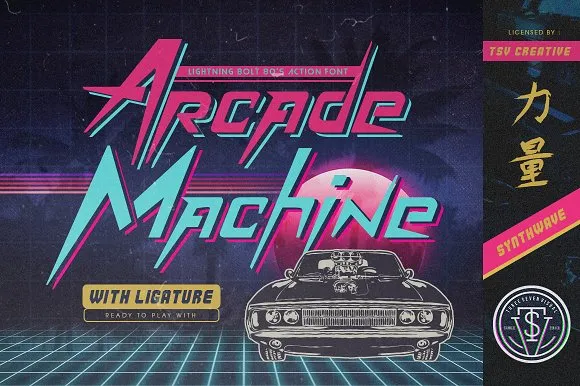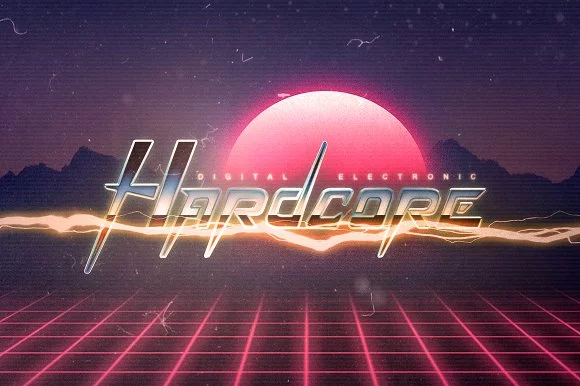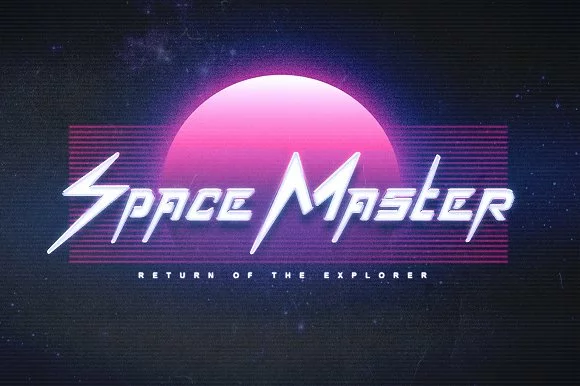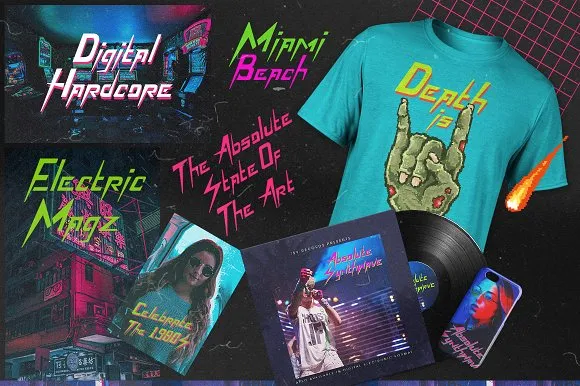
About Arcade Machine Font – A Retro 80s Typeface for Bold Design
I’m a typographer and graphic designer who often works with nostalgic typefaces. While researching fonts for a retro branding project, I found the Arcade Machine Font free version. The bold 80s arcade style immediately stood out.
I used it on a logo and poster design, and the results captured the feel of synthwave mixed with classic video game consoles. That experience inspired me to write this review. My goal is to show other creatives how this typeface performs in real projects and why it’s a strong choice for retro-inspired design work.
The Font Type and the Designer
Arcade Machine is a retro display font created by TSVcreative. The style takes inspiration from the glory era of the 1980s, when arcade gaming machines, Knight Riders, Miami Vice, and neon-lit action movies were cultural icons. The typeface combines the excitement of 80s arcade fonts with the energetic feel of synthwave.
The font was designed for nostalgia. It uses bold strokes, lightning bolt-inspired shapes, and grid-based structures to capture the look of arcade screens and console graphics. The characters have a pixel-like influence but with smoother edges, giving them a more modern twist.
With uppercase, lowercase, and ligatures included, the font is flexible enough for branding projects and experimental graphic design. It’s not just another retro font—it’s a typeface that recalls the 1980s console generation, delivering both nostalgia and versatility.
Features of This Font
The Arcade Machine Font free demo offers strong visual impact. Its bold letters are built with geometric lines, angular strokes, and a clear bitmap vibe. The characters are large and easy to read, perfect for headlines, arcade-inspired logos, and bold poster text.
The design features uppercase and lowercase characters with ligatures that create variety in text layouts. These details make the font more flexible than classic bitmap fonts like Press Start 2P, while still holding onto that arcade machine aesthetic.
The style brings back the glory era of 80s action movies and arcade gaming machines. Each glyph reflects the feel of synthwave with grid lines, lightning shapes, and strong frame edges. Designers can use it to create a memorable vibe for entertainment branding, action-themed graphics, or retro digital projects.
Arcade Machine works across desktop and mobile setups, whether you’re designing in Adobe, experimenting with bitmap graphics, or working on creative text-based artwork. The font is scalable, so it adapts to posters, t-shirts, or video game graphics without losing sharpness. Its 3D-like vibe, vibrant shapes, and arcade energy give projects a memorable look that feels authentic.
Arcade Machine is perfect for branding projects that need a nostalgic or retro look. Posters and flyers gain instant energy with its bold geometric strokes. Logos inspired by arcade gaming, consoles, and action movies benefit from its strong lines and pixel-based design.
The typeface also works for merchandise and apparel design. T-shirts, stickers, or video game branding projects carry a distinct 1980s arcade identity when styled with this font. Its retro vibe connects well with fans of old-school graphics and gaming culture.
Digital designers can use it in screens, headers, or app graphics to recreate a console-like interface. The Arcade Machine Font Free Download makes it simple to try in personal projects like retro posters, synthwave flyers, and fan artwork.
Its versatility extends to greeting cards, action-themed event materials, and entertainment branding. Whether you’re working on a neon-style poster, an arcade-inspired website, or a vintage graphic with bold modern colors, Arcade Machine creates the right atmosphere. It’s a retro typeface that blends nostalgia with modern usability.